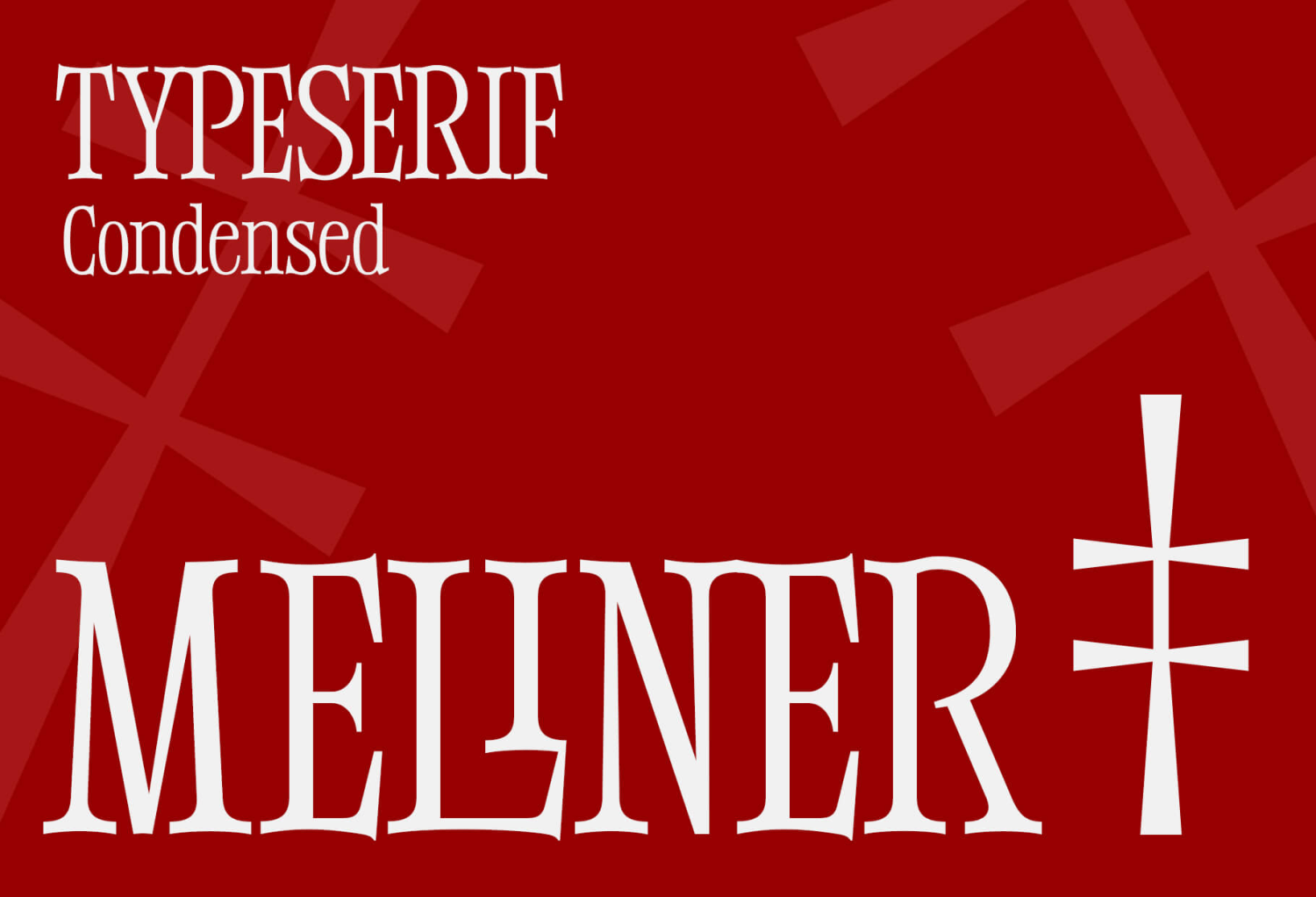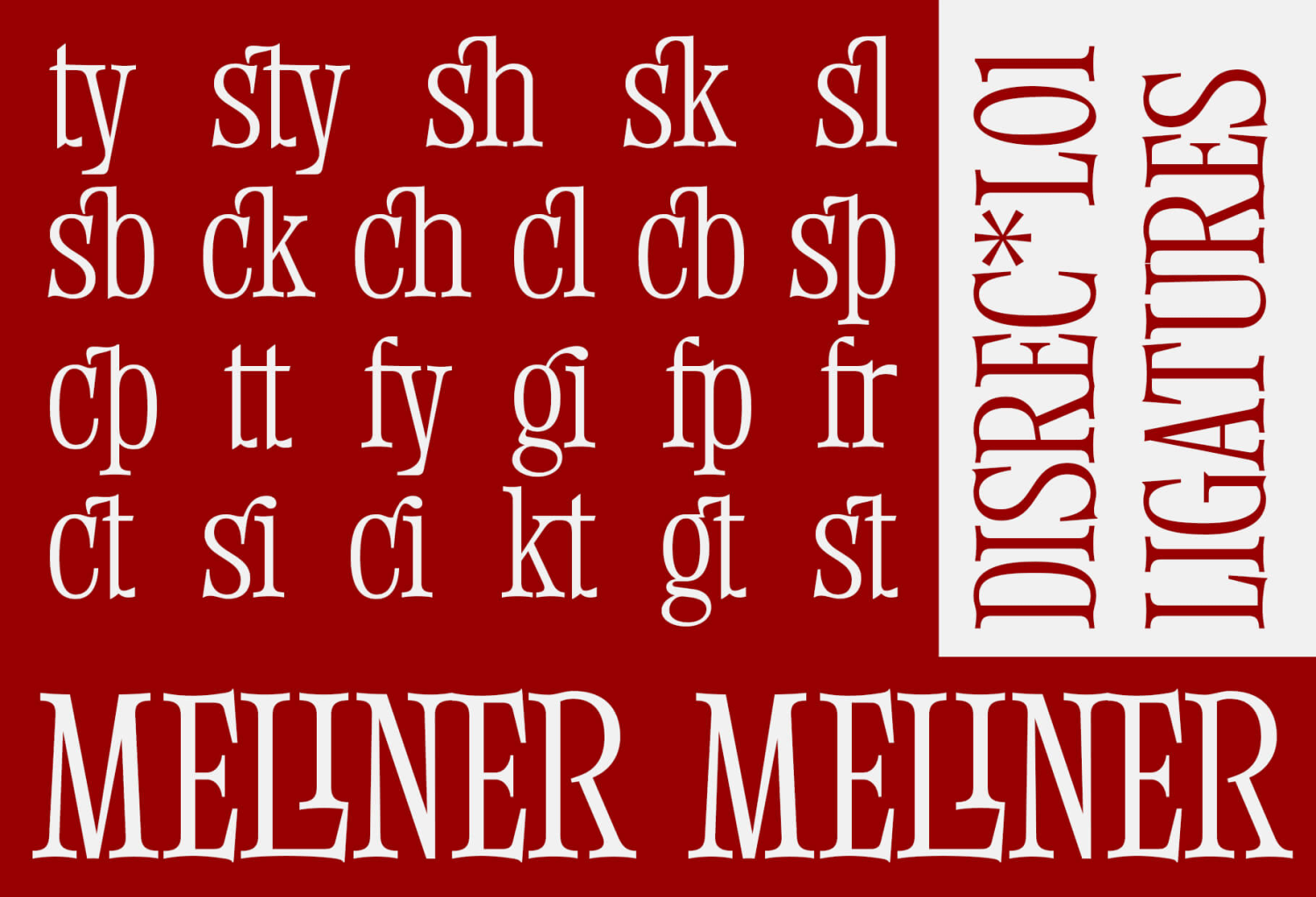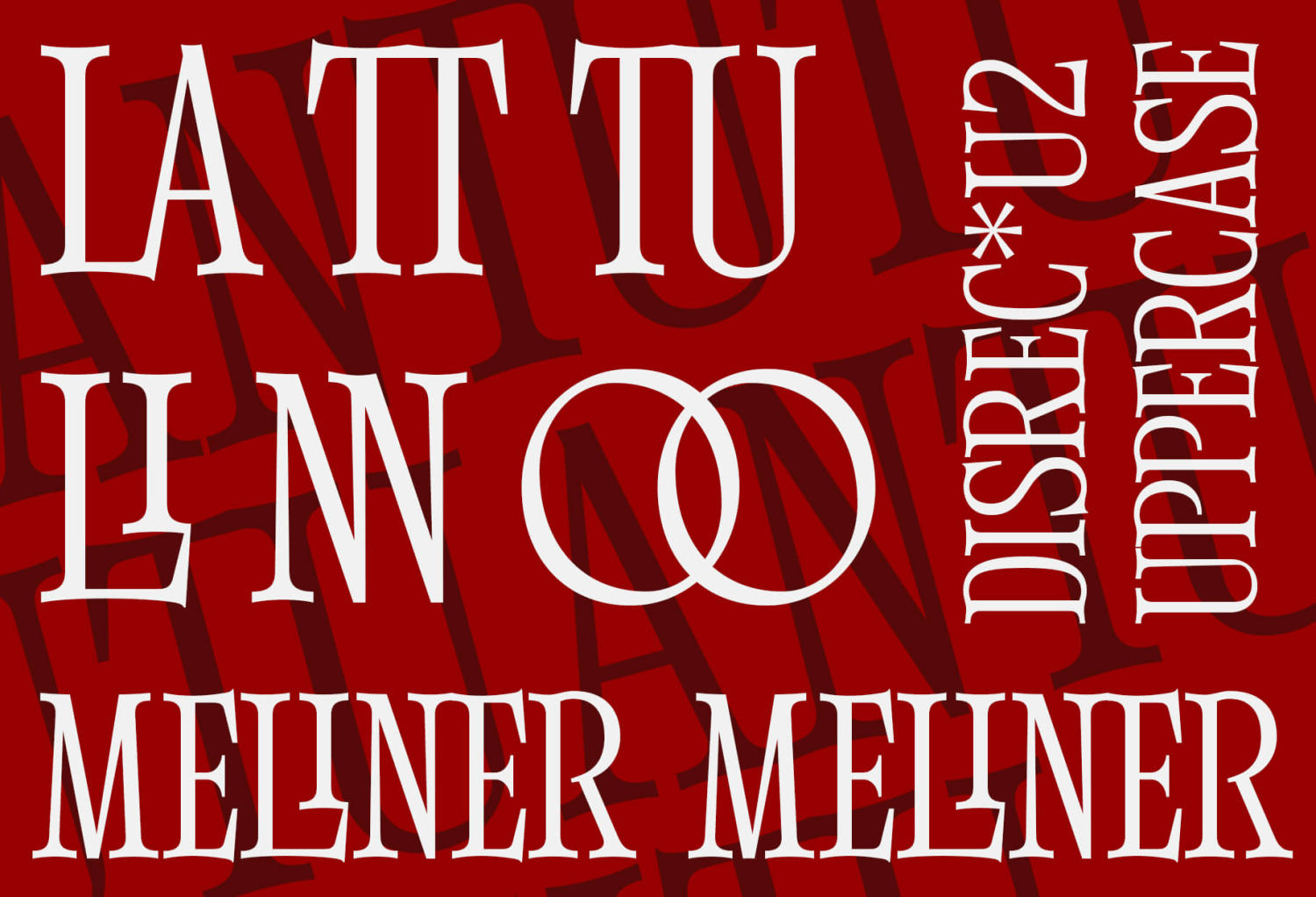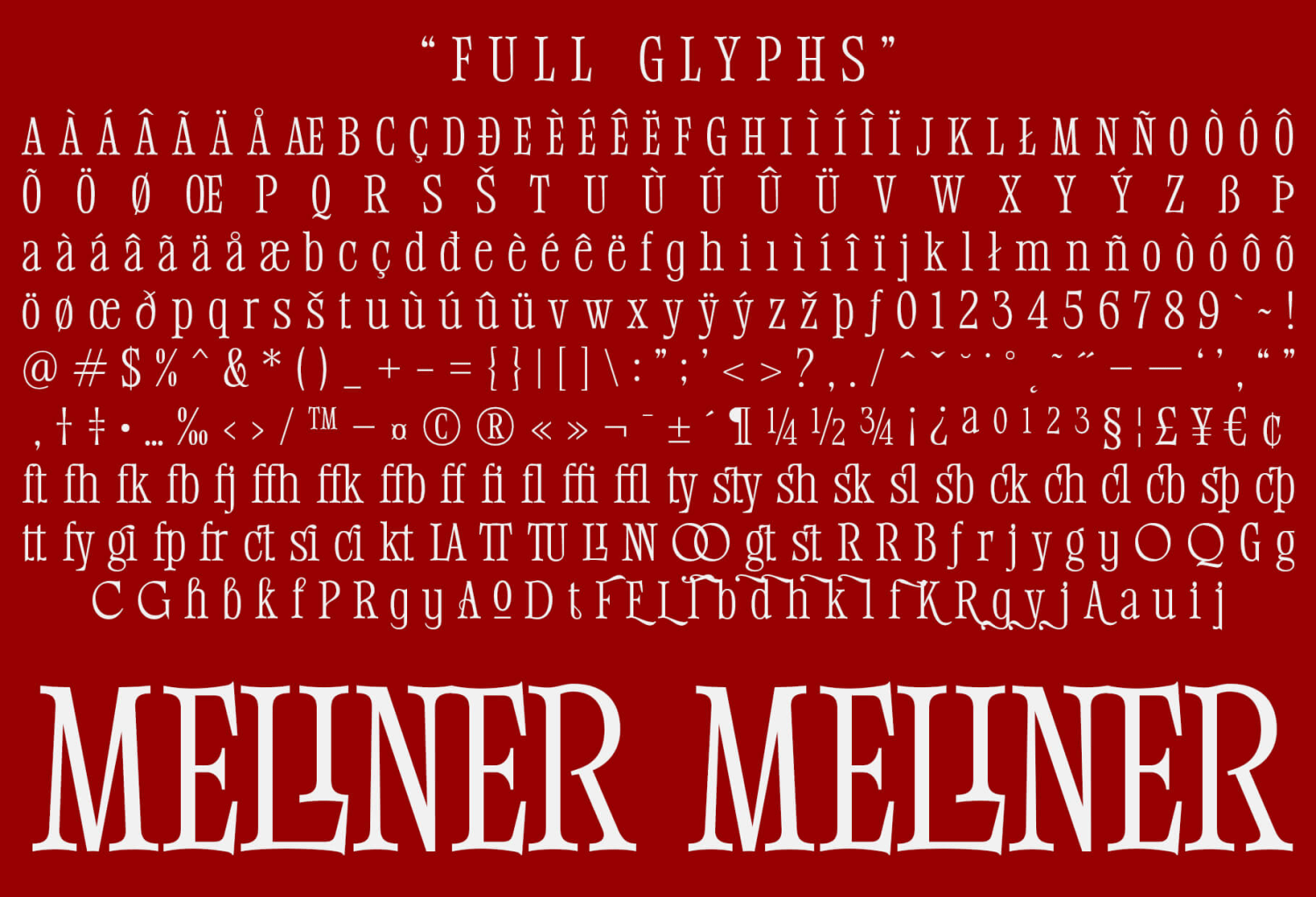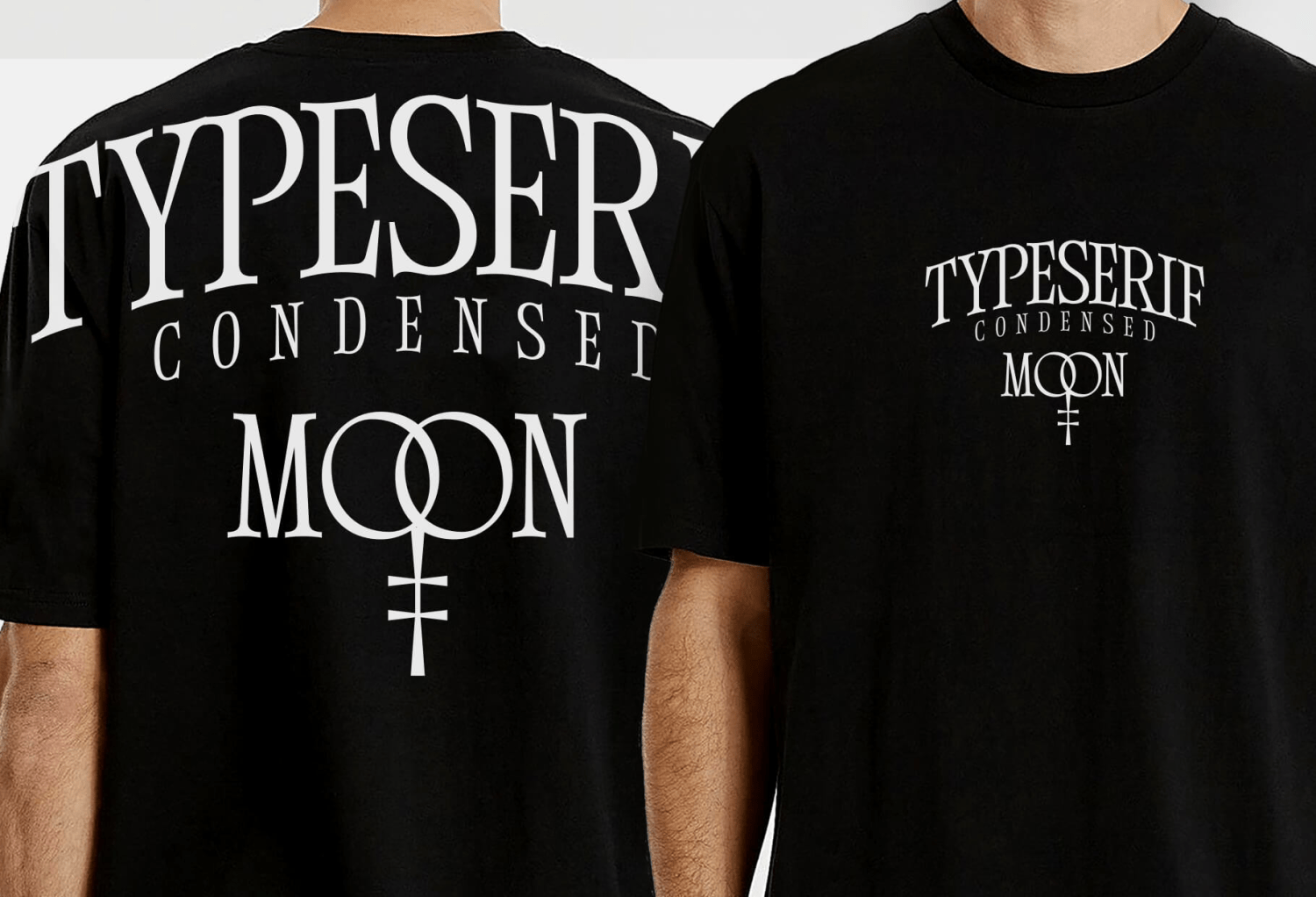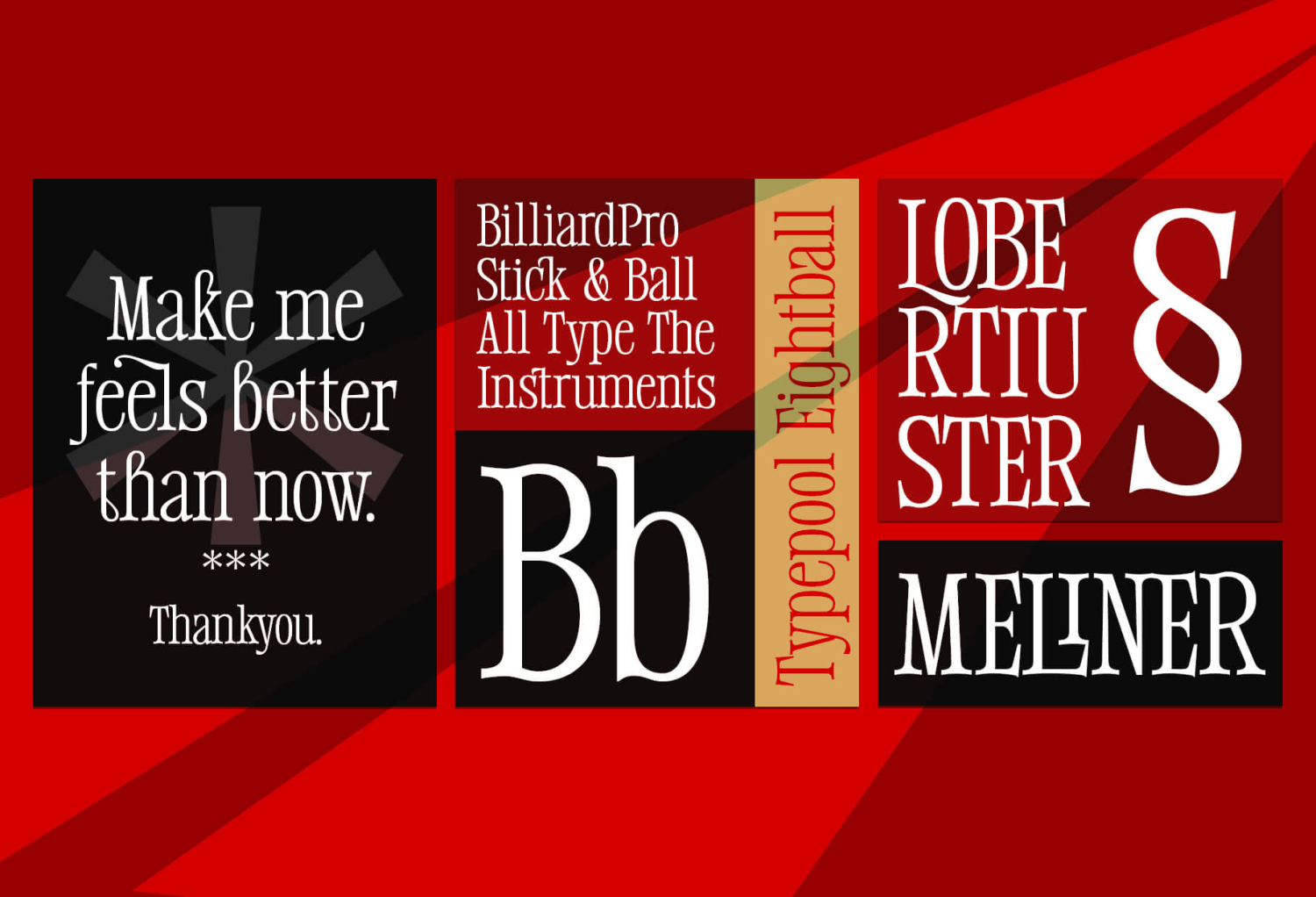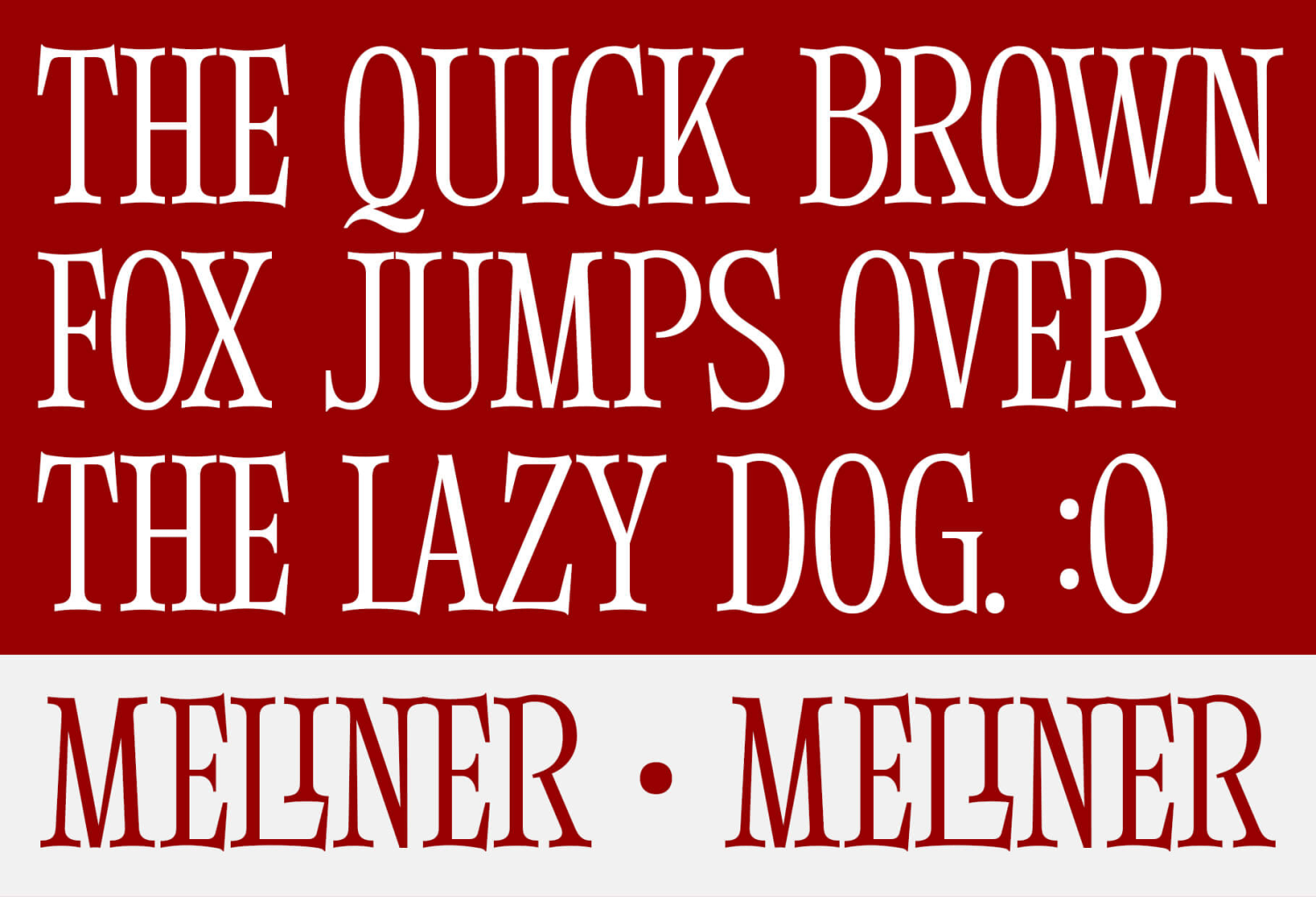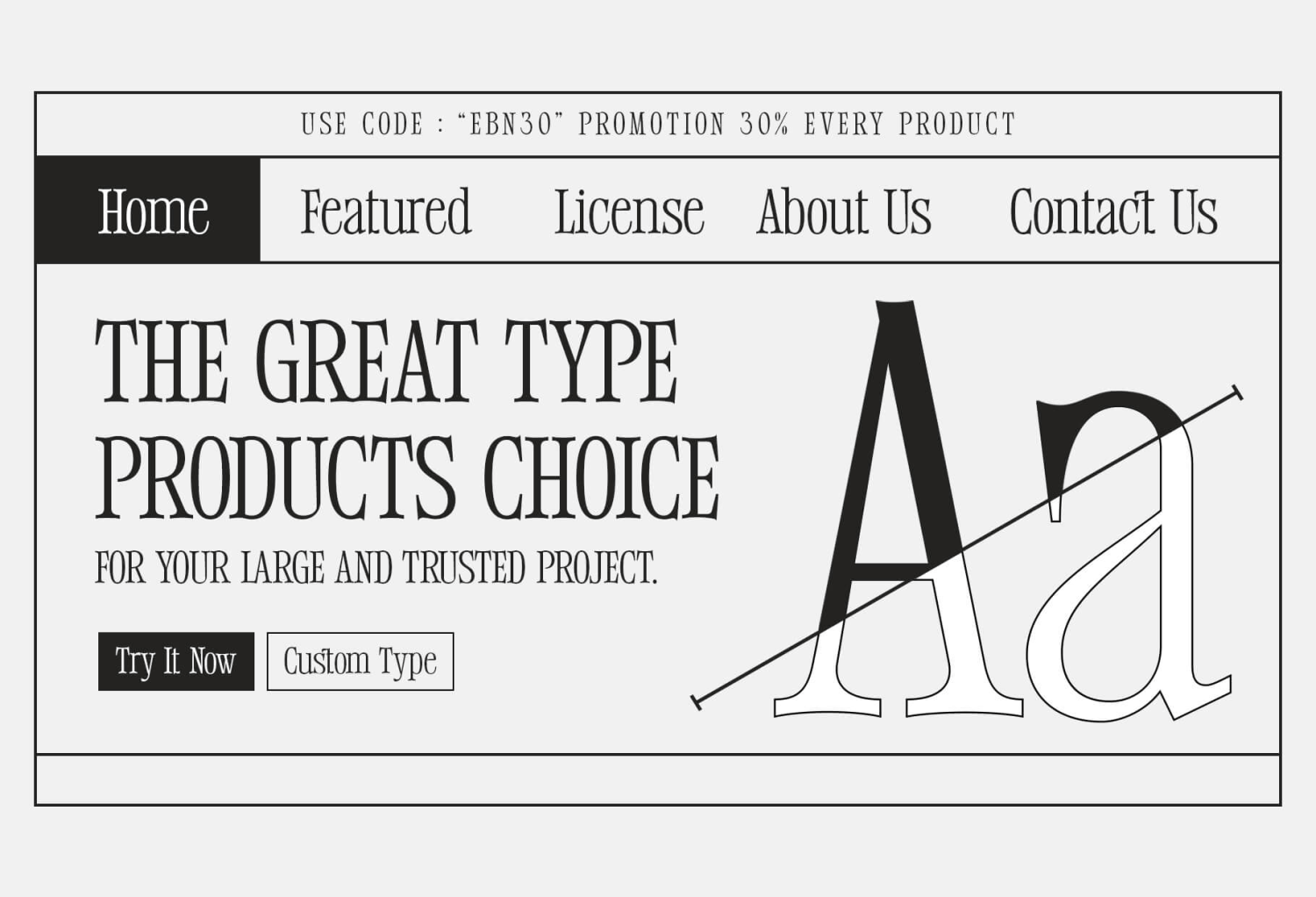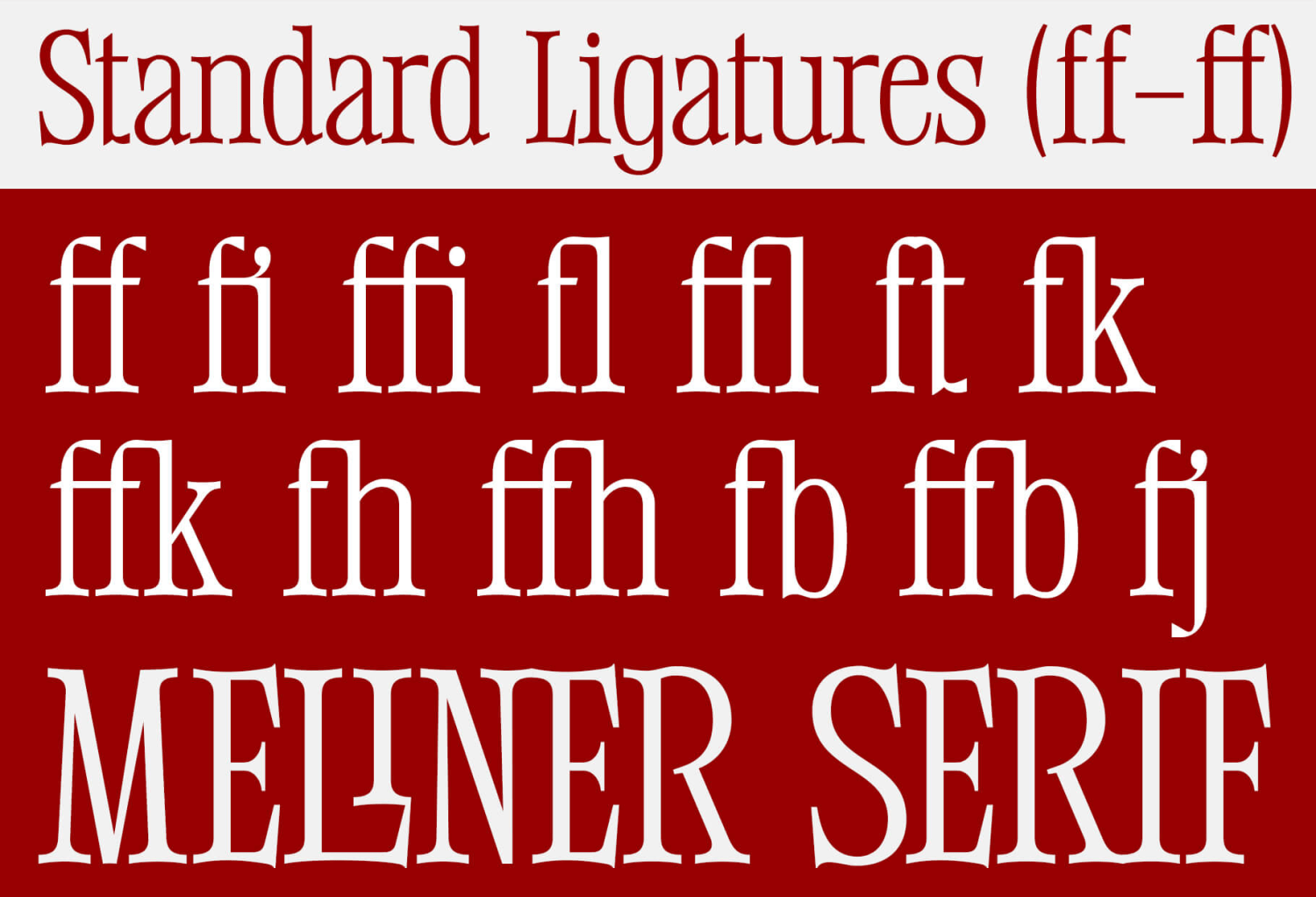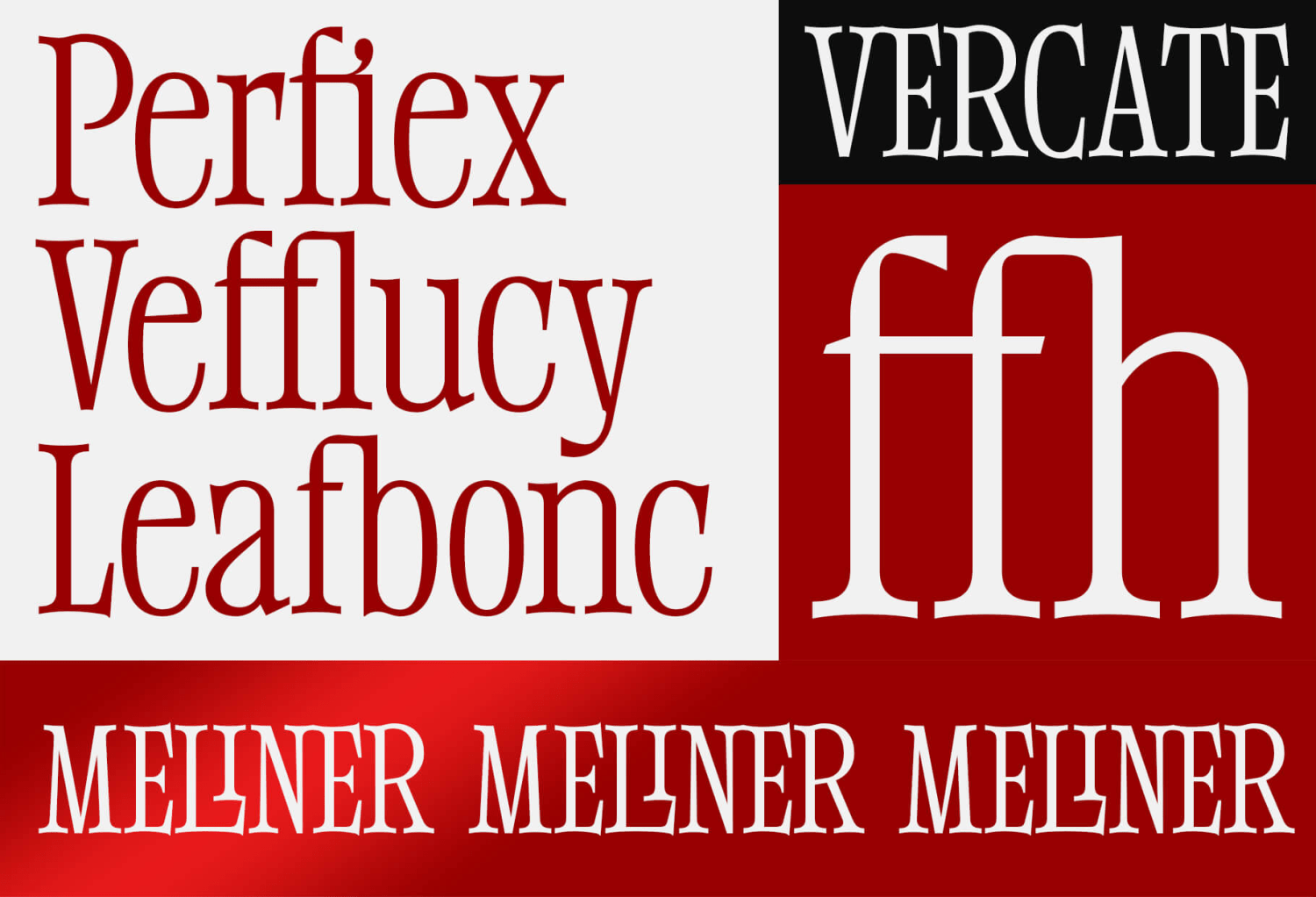
Meliner
Meliner is a compact display serif font that has a distinctive and elegant serif shape that is perfect for creating sleek, impressive designs that give it a modern, stylish personality.
Meliner comes with 40 ligatures and 46 alternative glyphs.
• All Caps Font with different uppercase and lowercase
• Numbers & Symbols
• Alternates and Ligatures